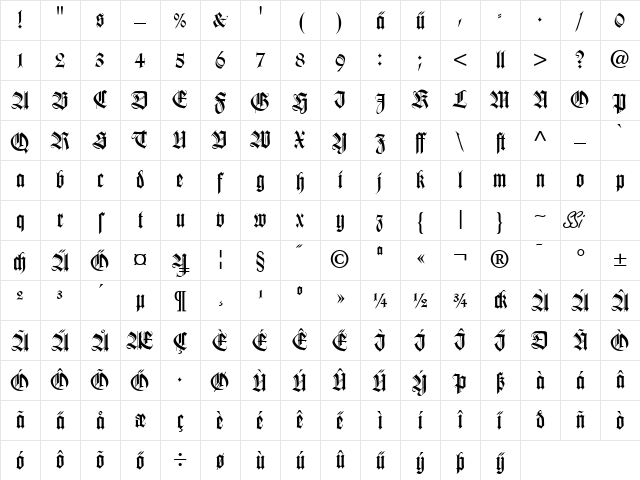
Design Context for Tudor SSi
Tudor SSi is a composed and adaptable typeface that performs quietly and consistently across a wide range of design contexts.
Pro Tip: Use Tudor SSi in both headline and body roles to test its range before committing to a single application.